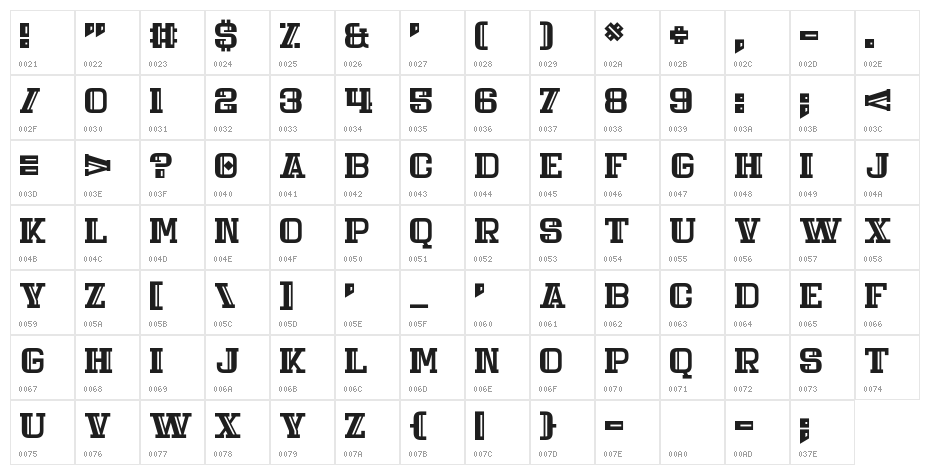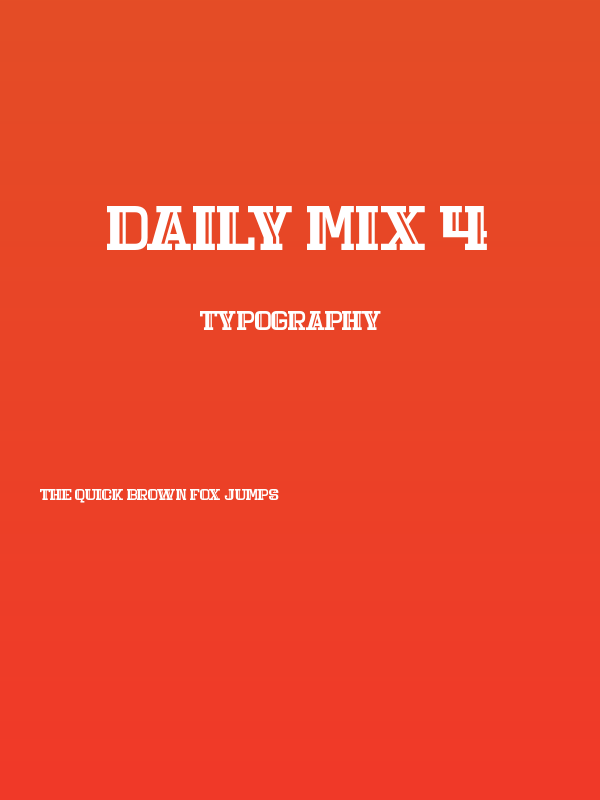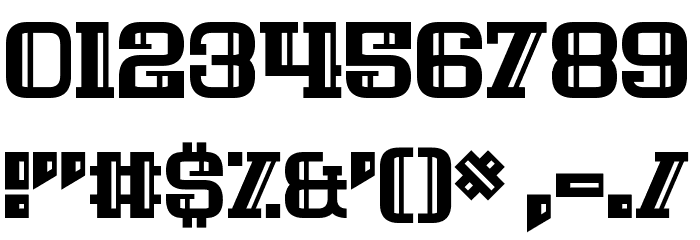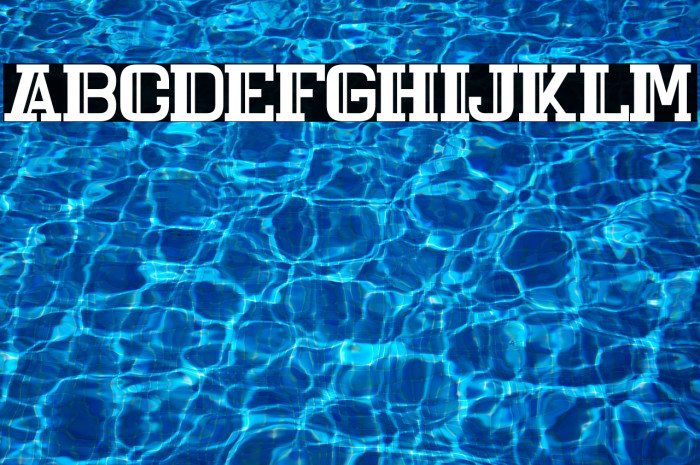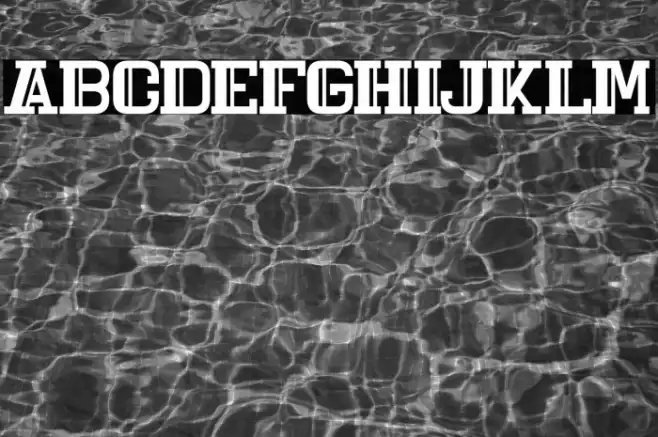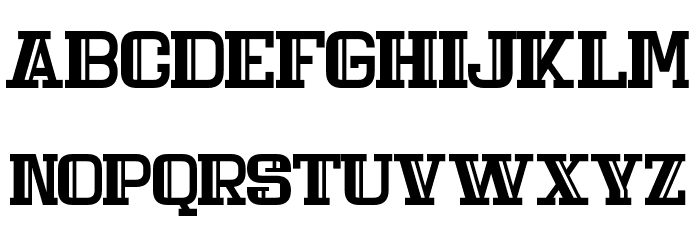
Daily Mix 4 Font
Daily Mix 4 Description
This font features a bold and impactful design with strong geometric shapes and a distinct industrial feel. The characters are constructed with thick, uniform strokes that create a sense of solidity and strength. The uppercase letters have a commanding presence, while the lowercase letters maintain the same robust style. The numerals and special characters are equally bold, ensuring consistency across all elements. This font's design is reminiscent of vintage industrial signage, making it ideal for projects that require a strong visual impact.
| Overall Style | Vintage, Industrial |
| Proposed Projects | Ideal for branding, posters, signage, and any project requiring a strong, impactful visual presence. |